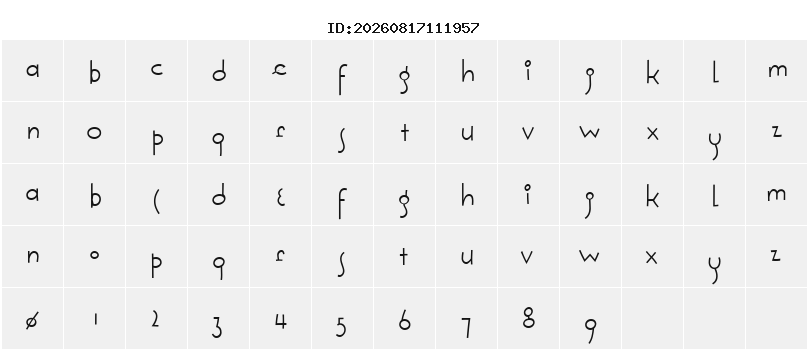
SoleaBetween Preview
About SoleaBetween.ttf
SoleaBetween.ttf is a modern, elegant sans-serif font designed for ultimate readability and visual harmony. Perfect for branding, headlines, web design, and print materials.